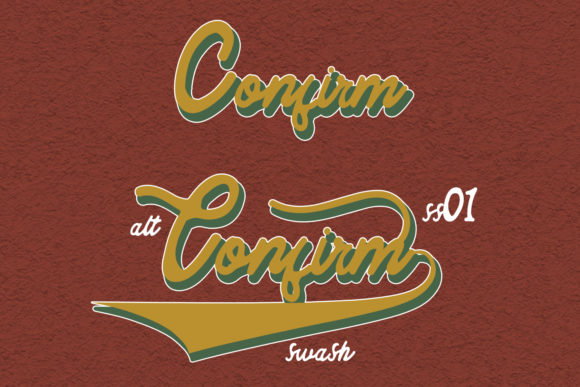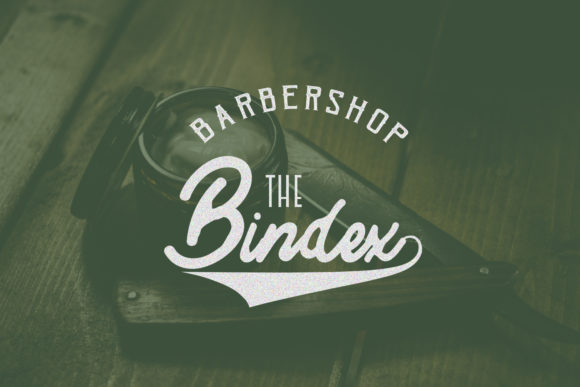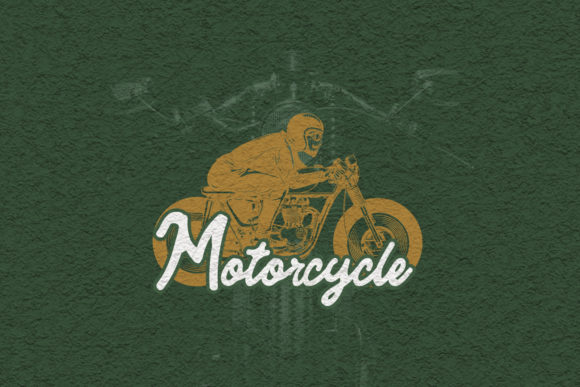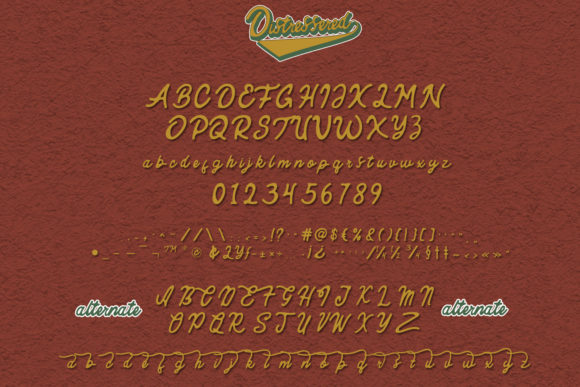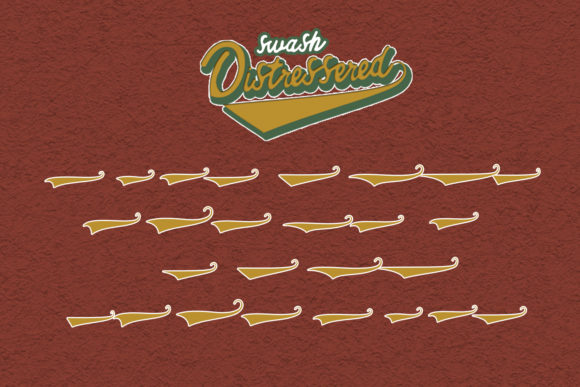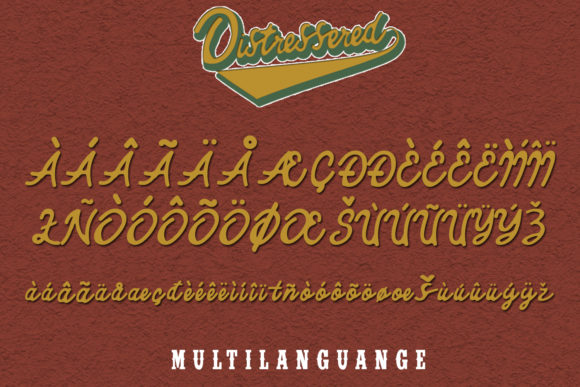
Introduction to Distressered Font
Distressered is a fun and cool vintage handwritten font.
Use it for any project that requires a retro vibe .
Key Features of Distressered Font